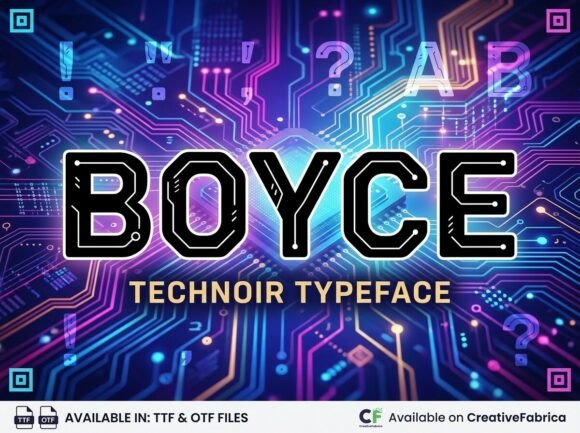
The Ultimate Guide to Boyce Font: Elevate Your Designs with this Stunning Display Font
I’ll never forget the time I was working on a branding project for a boutique coffee shop. My client wanted a font that would make their logo stand out, but I was struggling to find the perfect one. That was until I stumbled upon Boyce Font, a game-changing decorative display font that instantly caught my attention. In this article, I’ll share my experience with Boyce Font, its features, and how to make the most of it in your designs.
First Impressions: What Makes Boyce Font Special
Boyce Font is a decorative display font designed to be the center of attention. Its unique artistic elements and strong visual personality make it perfect for creators who want to break away from the ordinary. This font is versatile enough for bold headlines, artistic logos, and creative packaging, while maintaining a professional and polished finish.
Honest Review: The Good and the Quirks
Here’s my honest review of Boyce Font:
- ✨ Unique and artistic design that grabs attention.
- ✅ Professional and polished finish.
- 💡 Versatile for various design projects, from headlines to logos.
⚠️ IMPORTANT NOTE BEFORE PURCHASE: Boyce Font is an ALL-CAPS (Uppercase Only) display typeface. It does not include lowercase letters. This might be a limitation for some designers, but it’s specifically designed for high-impact headlines, logos, and decorative initials where every letter is a work of art.
The Story Behind Boyce Font
Boyce Font was designed by a team of creatives who wanted to create a font that would make a statement. Inspired by the world of art and design, they crafted a font that is both unique and attention-grabbing. The font’s name, Boyce, is a nod to the artist and designer, Donald Boyce, who was known for his innovative and bold designs.
Q: Is Boyce Font suitable for body text?
A: No, Boyce Font is a display font designed for headlines, logos, and decorative text. It’s not recommended for body text due to its unique design and ALL-CAPS limitation.